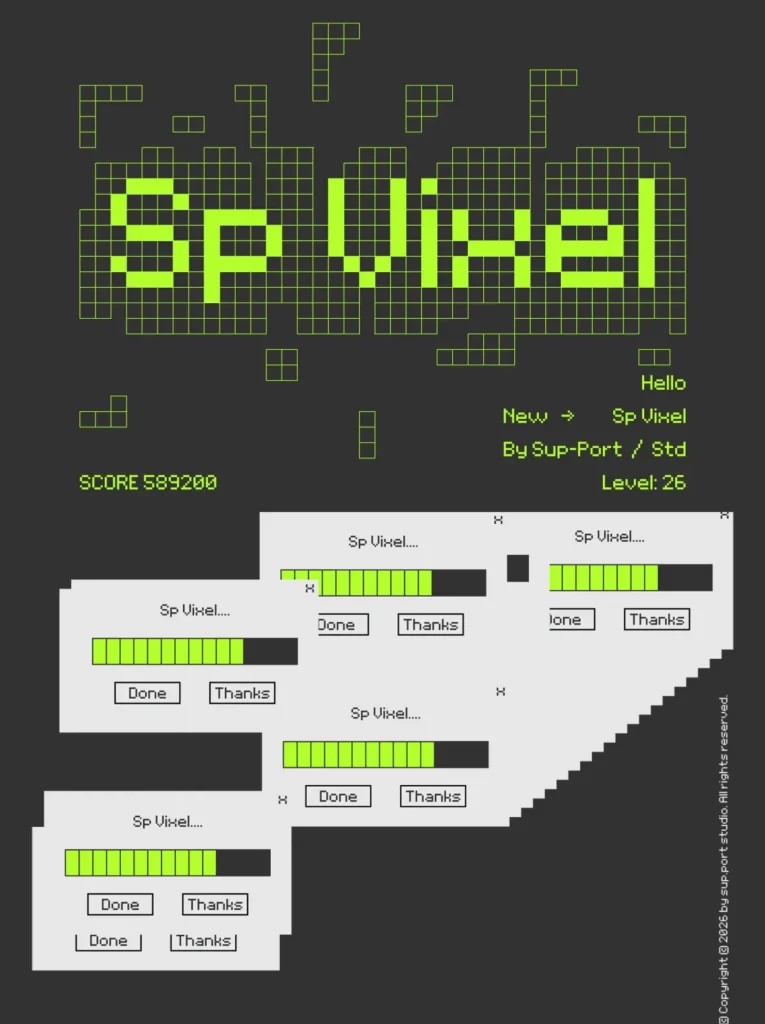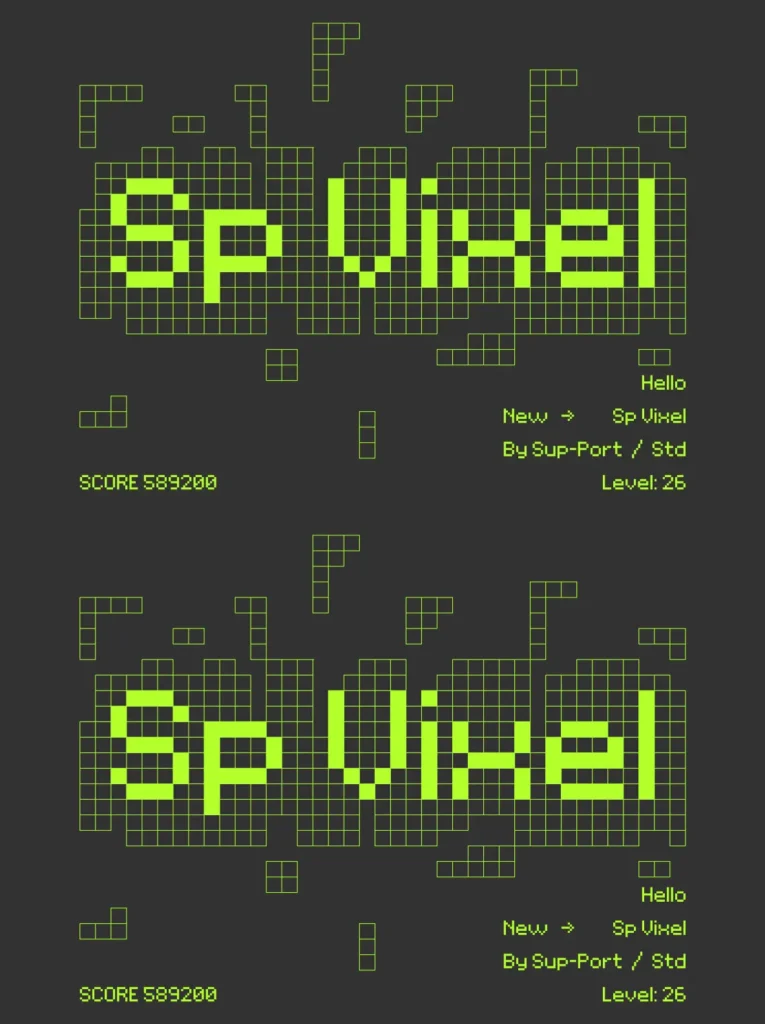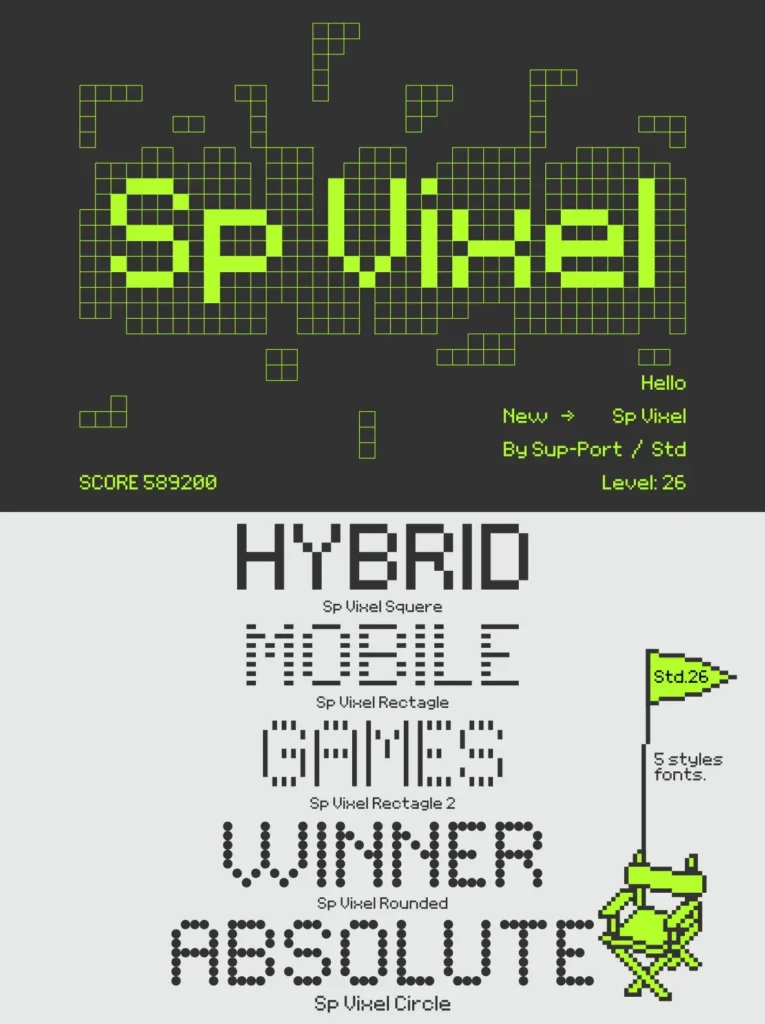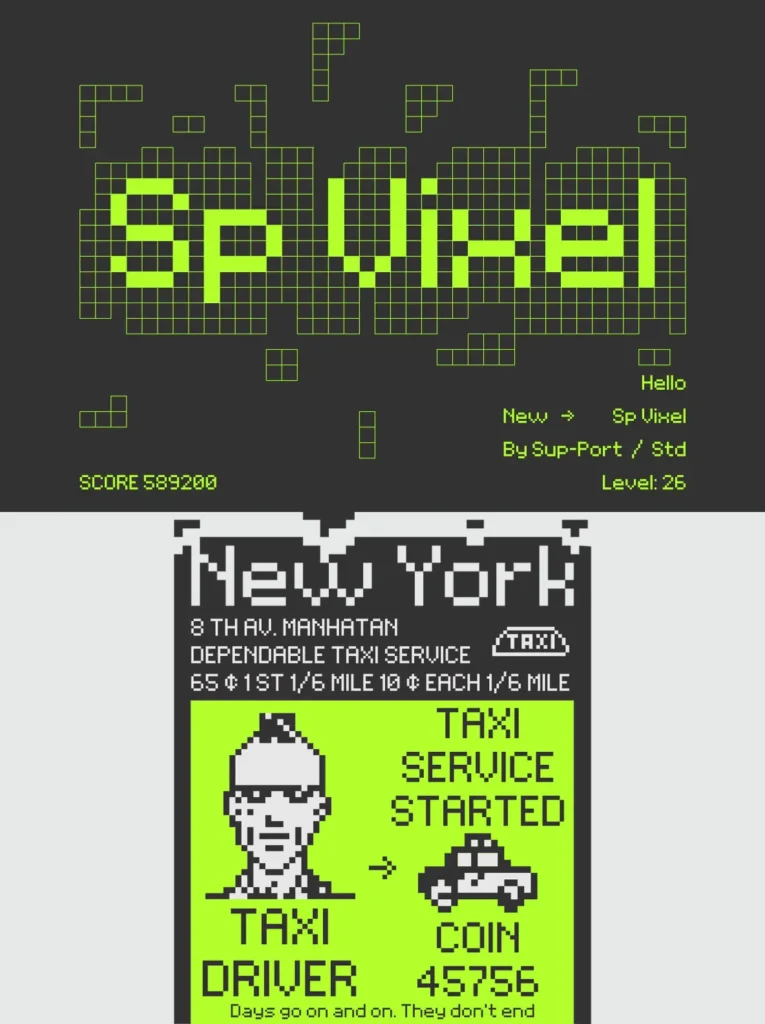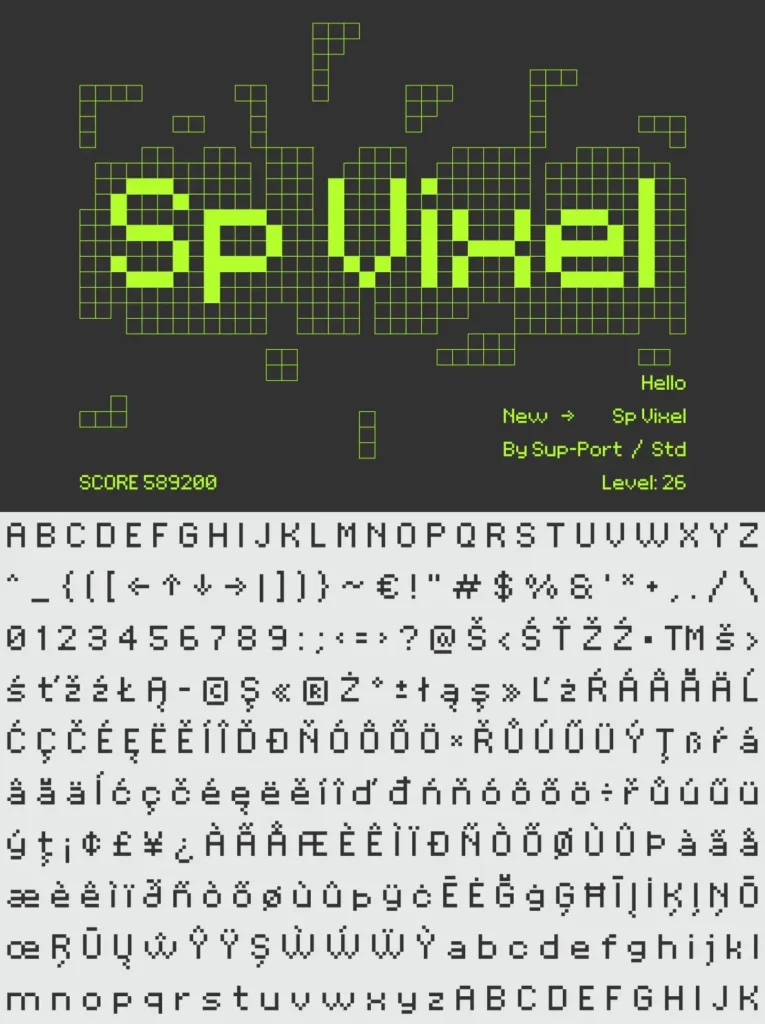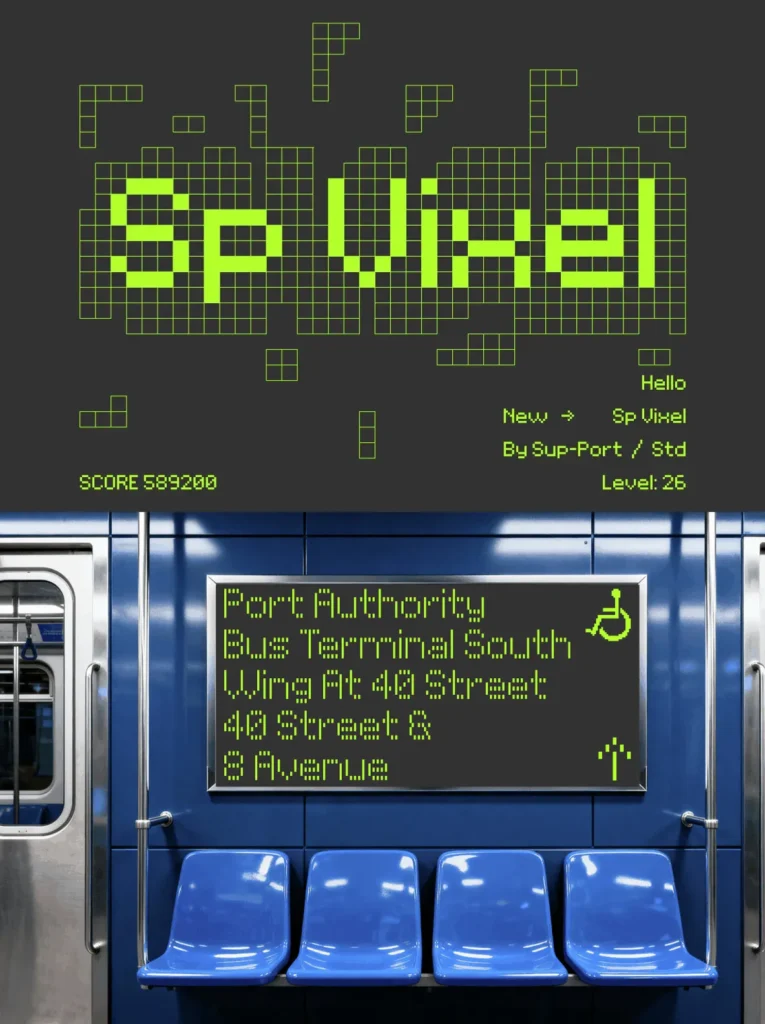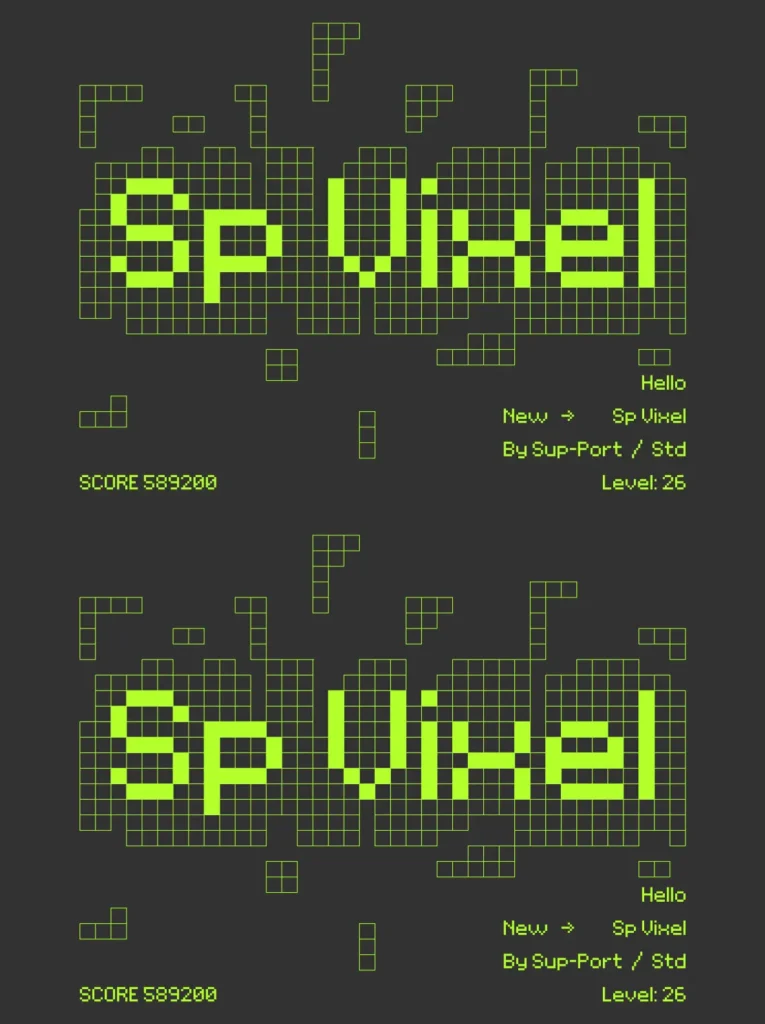
SP VIXEL — Pixel-Tech With Impact
SP VIXEL is a bold futuristic pixel font built for designs that need a strong digital presence. It features 5 unique font styles, giving you a focused set of options for creating sharp, high-impact typography across modern visual projects.
Its dynamic, well-structured layout grabs attention quickly while keeping a clear pixel-tech aesthetic. SP VIXEL suits gaming, tech, digital branding, and creative projects that call for a modern visual style with confident character and flexible font choices.